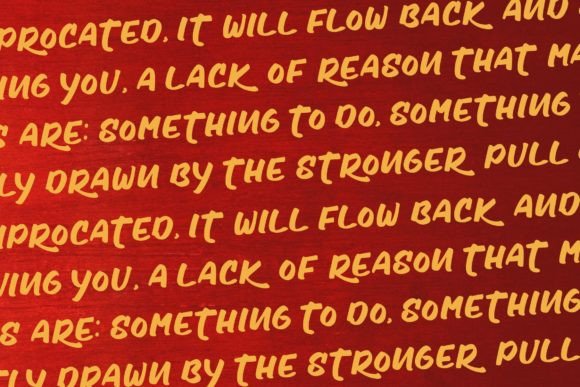
About Honest Font
**Introducing Honest: Playful and Stylish Font with a Youthful Spirit**
Dive into the world of creativity with Honest, a font that exudes playfulness and style while embodying a youthful spirit. Whether you’re working on professional branding designs, labels, websites, and business cards, or engaging in casual projects such as packaging, posters, flyers, quotes, social media posts, invitations, or special occasion cards, Honest is your versatile companion that seamlessly adapts to various design needs.
**Playful Charm:**
Honest captures attention with its inherent playfulness, breathing life into each character. The font exudes a lively and spirited vibe that resonates with a youthful audience. Each letter seems to dance on its own, contributing to an overall design that feels dynamic and fresh.
**Stylish Versatility:**
What sets Honest apart is its stylish versatility, making it suitable for a broad spectrum of projects. It effortlessly transitions between professional and casual designs, showcasing its adaptability in both realms. The font is a chameleon, allowing you to infuse a sense of style into everything from business cards to social media posts.
**Youthful Spirit for Casual Designs:**
For casual and creative designs, Honest becomes a go-to choice. Whether you’re crafting packaging with a contemporary flair, designing eye-catching posters, or creating engaging social media content, this font injects a youthful spirit that resonates with the modern aesthetic.
**Professional Appeal for Branding:**
In the realm of professionalism, Honest maintains its style while adding a touch of sophistication. It becomes the ideal choice for branding projects, labels, and business cards, ensuring that your visual identity communicates a blend of professionalism and contemporary flair.
**Versatility Unleashed:**
Honest is not bound by limitations. It breaks free from the conventional and embraces a design freedom that spans across a multitude of applications. From quotes that need a touch of character to invitations for special occasions, the font becomes a tool for creative expression that adapts to your vision.
**Conclusion: Infuse Playfulness with Honest**
In conclusion, Honest is more than just a font; it’s a design ally that brings playfulness and style to your projects. Its youthful spirit makes it equally at home in both professional and casual settings, allowing you to infuse your designs with a contemporary vibe. Let Honest be the creative force that elevates your branding, engages your audience on social media, and adds a touch of style to your special occasion cards. Embrace the playful charm and stylish versatility of Honest as you embark on your creative journey.